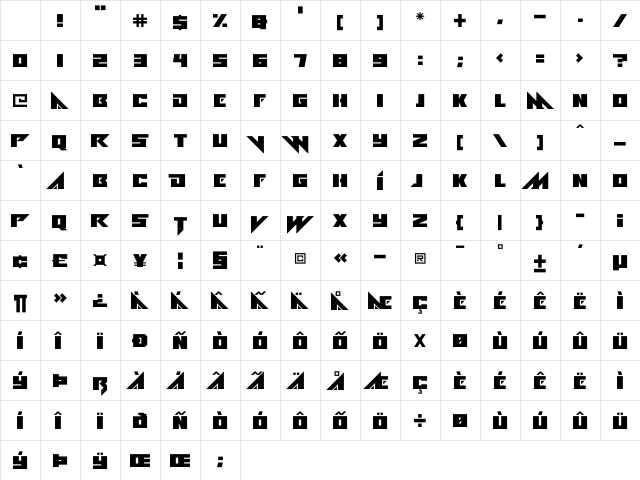
Complete Alien Ravager Regular glyph index. Displaying only characters natively supported by Alien Ravager Regular font.
Alien Ravager is a composed and adaptable typeface that performs quietly and consistently across a wide range of design contexts.